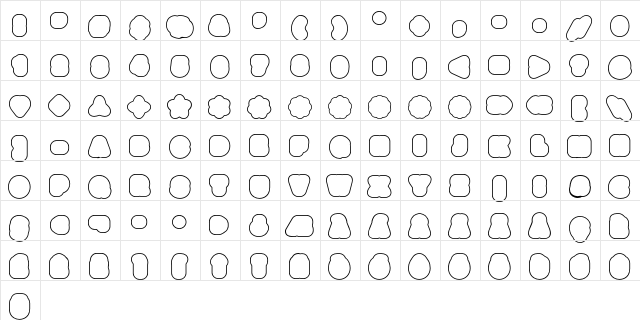
Boogie LT Std Outline 4
| Foundry | Linotype GmbH |
| Designer | Ralf Weissmantel |
Design Context for Boogie LT Std Typeface
Boogie LT Std brings ornamental detail and strong personality to headlines and identities, where visual impact matters more than quiet functionality. The delicate stroke weight brings airiness and refinement to layouts.
Font Pairing: Pair with a clean neutral sans-serif for body copy to let Boogie LT Std's character lead without overwhelming the composition.
Pro Tip: Treat Boogie LT Std as the centrepiece of your typographic hierarchy. One strong heading set in a decorative face can carry an entire layout.